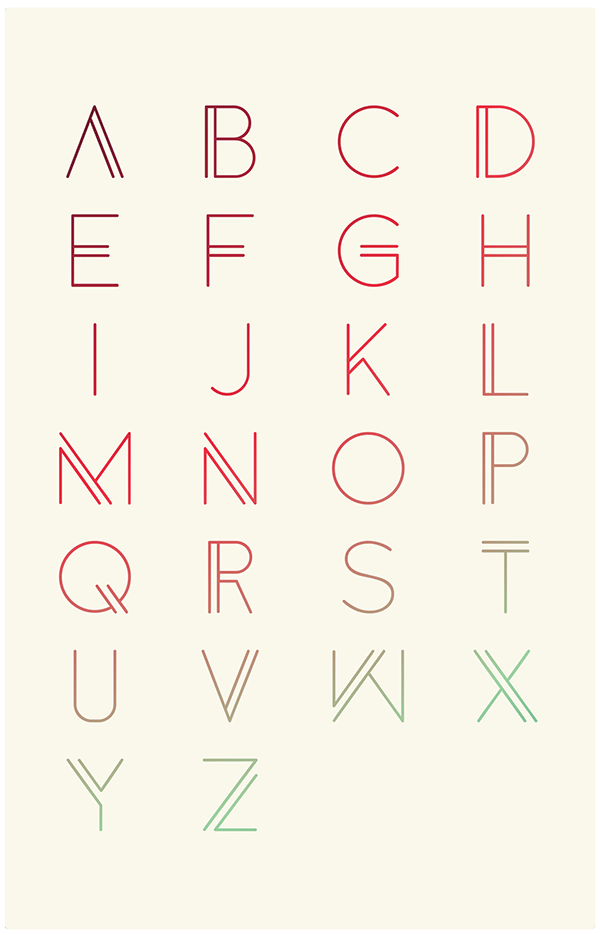
Free Font Of The Day #159 – Anders Font
Anders Font is an experimental free font featured by a modern and minimal look. Designed and released by Mr. Alex White.